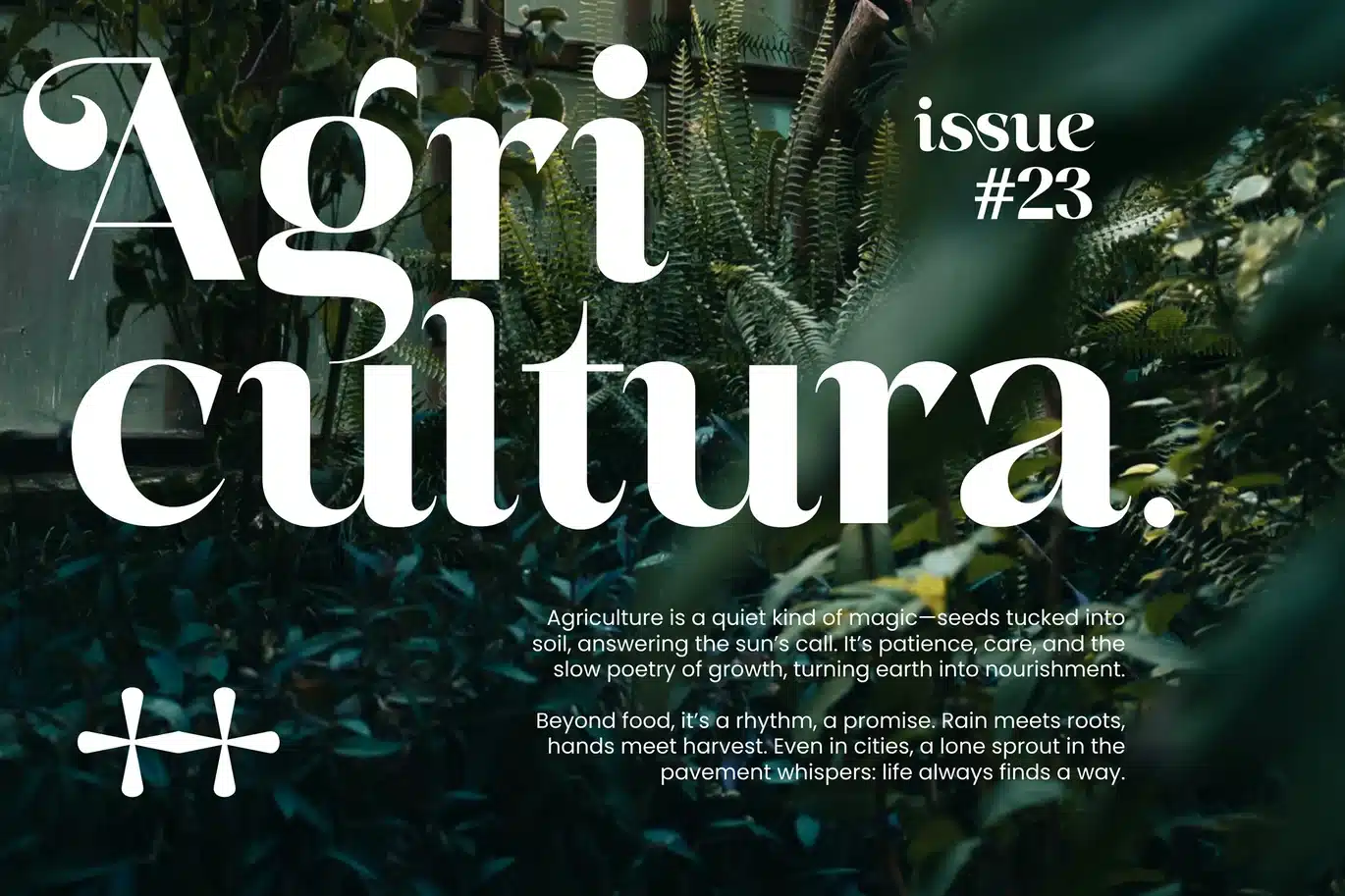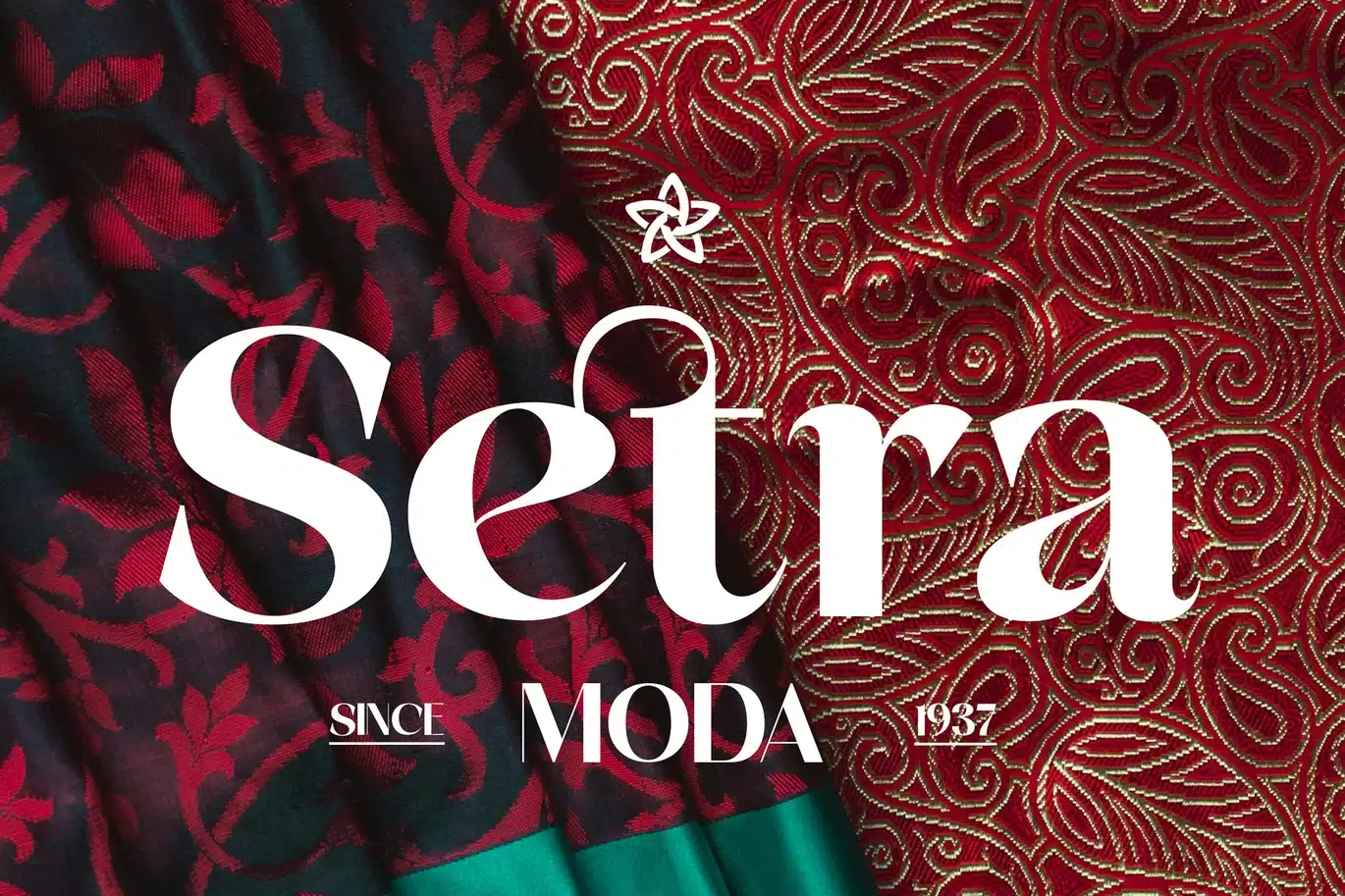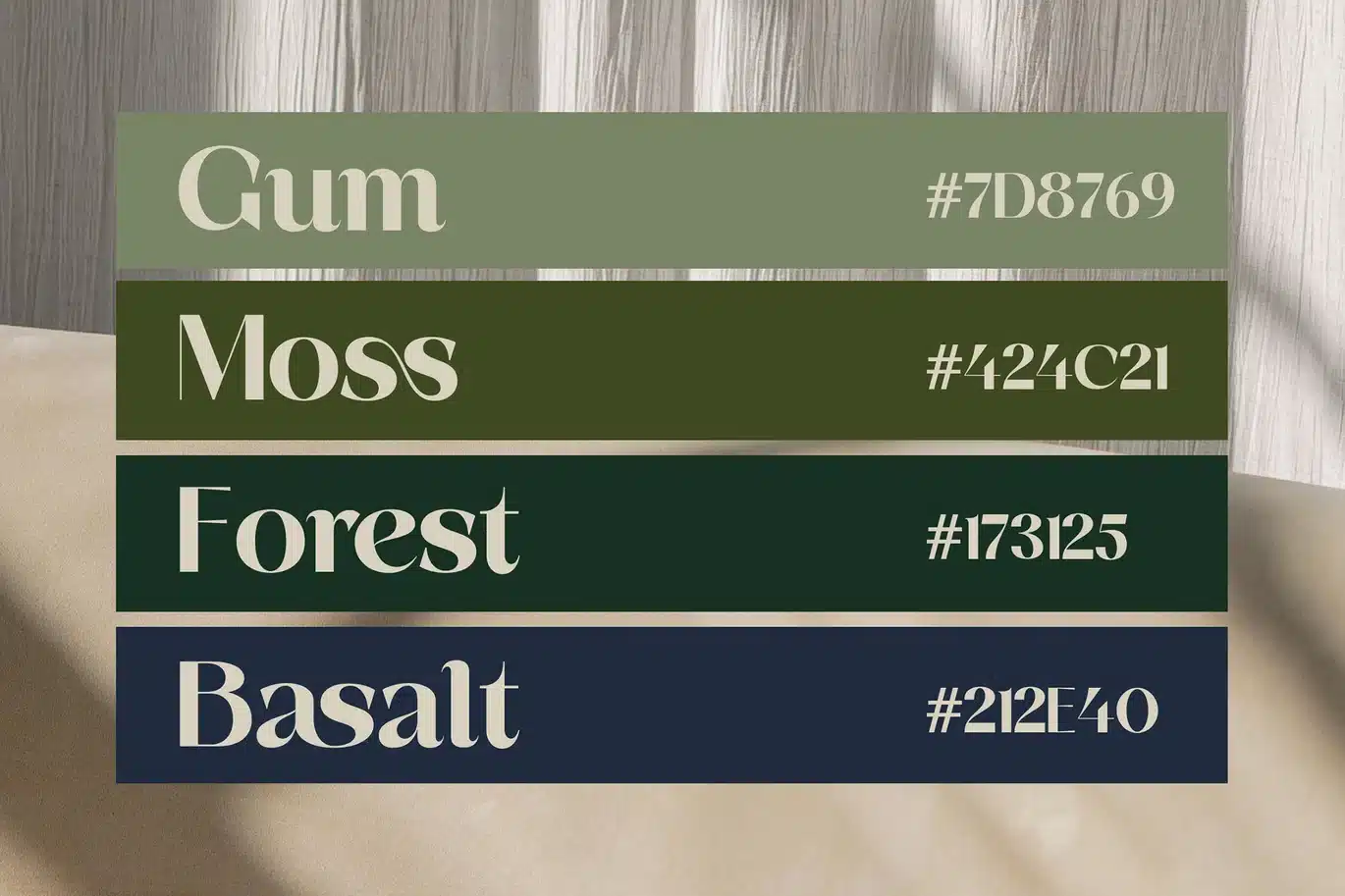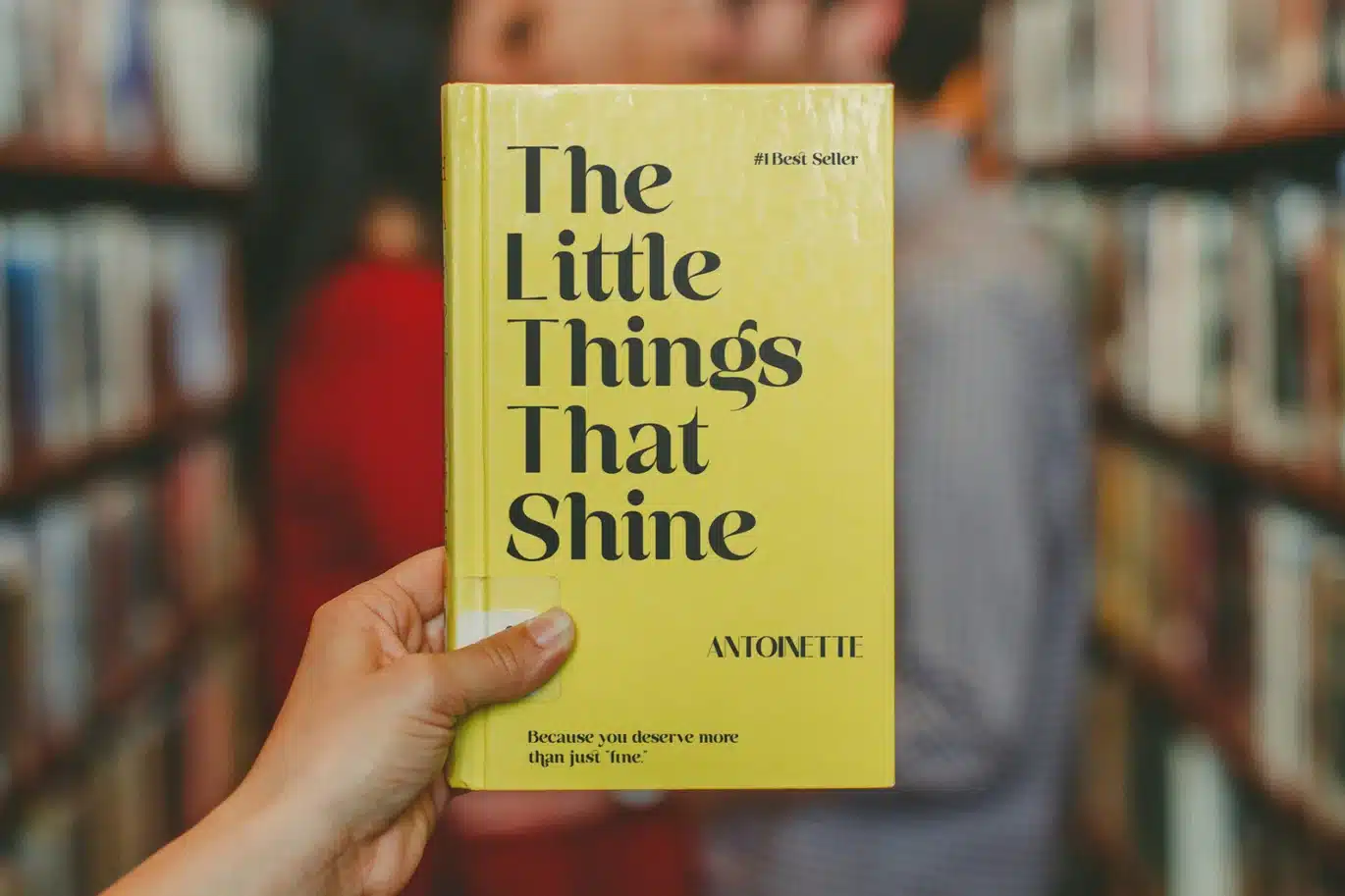
Basken Typeface Font
Basken Sans Serif Display is a modern vintage Sans Serif font wrapped in a modern and classy style, complete with access to your OpenType features to access a wide selection of alternates and ligatures, choose your favorite letters from uppercase and lowercase variations to get a luxurious and elegant look.
This font is perfect for branding projects, logo design, branding, packaging, magazine titles, book titles, advertising, postcards, and more.
- Modern and futuristic style
- Unique and recognizable character shapes
- Includes uppercase, lowercase, numbers, and punctuation
- Stylistic Alternates & Stylistic Ligatures